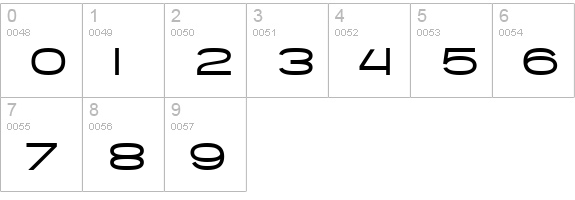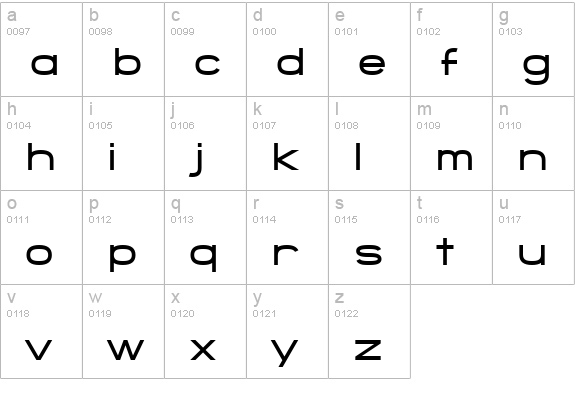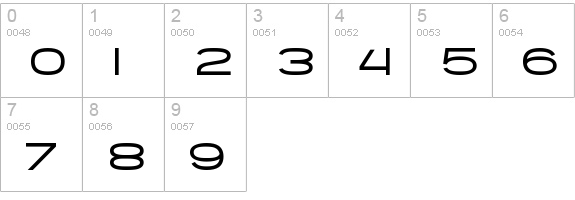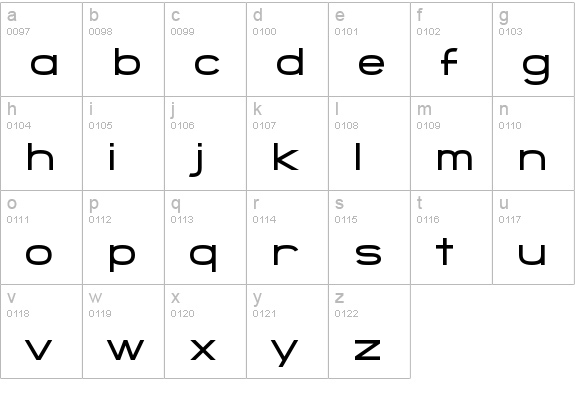
SF Grandezza Medium Font Details
SF Grandezza Medium is a balanced, medium-weight variant in the SF typeface family \xE2\x80\x94 well suited to sub-headlines, navigation, and balanced editorial work.
SF Grandezza Medium font is a remarkable typeface that effortlessly blends sophistication and modernity. With its clean lines and elegant curves, it exudes a sense of professionalism and refinement. This versatile font is perfect for a wide range of design projects, from branding and advertising to web design and print materials. The medium weight of SF Grandezza adds a touch of boldness and presence to your text, making it stand out with confidence. Its balanced proportions ensure that each letter is easily readable, even at smaller sizes. Whether you're designing a logo, crafting a headline, or creating a poster, this font will make a memorable impact. One of the best things about SF Grandezza Medium font is that it is free to download. You can easily access this exceptional typeface at FontsMarket.com, where it is available for instant download. This means that you can start using this font in your projects right away, without any hassle or cost. So, if you're looking for a high-quality, visually appealing font that brings a touch of elegance and professionalism to your designs, look no further than SF Grandezza Medium. Download it for free at FontsMarket.com and take your design game to the next level.